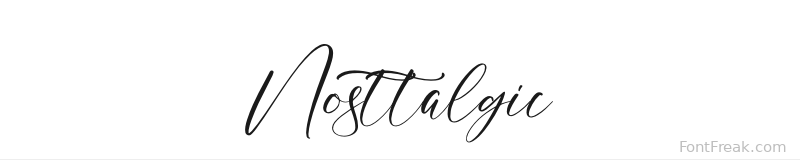
Nosttalgic
About Nosttalgic
Nosttalgic is a beautifully crafted script font designed by Perspectype Studio, released in 2021. This font falls under the decorative category, capturing a sense of whimsy and charm that appeals to a wide range of creative projects. With its elegant, flowing lines and varied stroke weights, Nosttalgic exudes a sense of sophistication while maintaining a friendly and inviting appearance. The contrast in thickness between the thick and thin strokes adds depth, making it a visually compelling choice for any design.
One of the standout features of the Nosttalgic font is its graceful slant and the fluidity of its letterforms, which are adorned with gentle curves and flourishes. The spacing of the characters is meticulously balanced, resulting in an airy feel that enhances readability. This makes the font ideal for a variety of applications, including wedding invitations that require a touch of romance, movie posters that benefit from a vintage aesthetic, restaurant menus that aim to evoke a cozy atmosphere, and branding elements for artisanal products that desire a handcrafted look.
Targeting graphic designers, small business owners, and content creators, Nosttalgic offers a versatile solution for those looking to add a personal touch to their work. The font’s freeware license allows for easy access, making it an excellent choice for both professional and personal projects.
What truly sets the Nosttalgic font apart is its ability to evoke feelings of nostalgia while remaining fresh and contemporary. Its unique character and charm make it a must-have for anyone looking to infuse their designs with warmth and personality. For those interested, the Nosttalgic font free download is readily available, inviting you to explore its potential in your next creative endeavor.